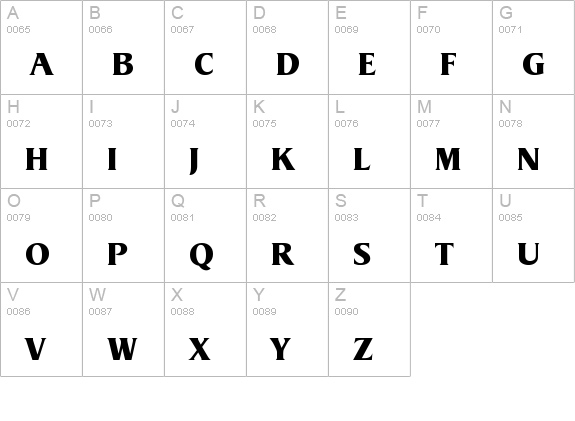
DragonSerial-Heavy-Regular is a heavy, high-impact variant in the DragonSerial typeface family \xE2\x80\x94 well suited to high-impact headlines, posters, and display advertising.
DragonSerial-Heavy-Regular font is a versatile and powerful typeface that exudes strength and boldness. Its heavy weight and distinctive serifs give it a commanding presence on any design project. Whether you're creating posters, logos, or headlines, this font is sure to make a statement. What's even better is that DragonSerial-Heavy-Regular font is available for free download at FontsMarket.com. This means you can easily access and use this striking font without any cost. Don't miss out on the opportunity to elevate your designs with the impactful DragonSerial-Heavy-Regular font. Download it today and unleash its potential in your creative projects.